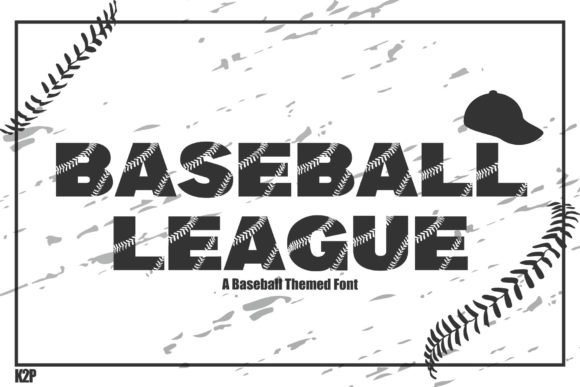
Introduction to Baseball League Font
Baseball League is a cool, bold, and inspired decorative font.
Add it to your baseball-related designs and you will be astounded by the results .
Why Choose Baseball League Font?
Baseball League Font offers exceptional quality and versatility, making it a valuable addition to your design toolkit. Whether you’re creating for personal projects or commercial use, Baseball League Font delivers professional results.